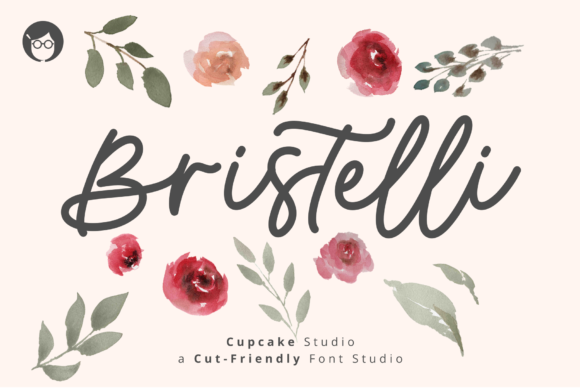
Welcome to the world of aesthetics, where words and art converge into a harmonious dance of letters. The AL Bristelli Font, a captivating creation by TheSundoro, awaits you as the ultimate script font for your home-building endeavors. With its soft curves and delicate nuances, this font is a masterpiece of modern calligraphy.
Imagine the joy of crafting handmade cards, the allure of captivating social media posts, and the uniqueness of personalized home décor, all enhanced by the AL Bristelli Font. Its versatility knows no bounds as it seamlessly blends the organic and the elegant, the classic and the contemporary.
Embark on a journey of creative expression as you explore the many wonders of the Bristelli:
- Write love letters with a touch of romance, making hearts flutter with joy.
- Design wedding invitations that exude timeless grace, cherishing the most sacred moments of life.
- Create eye-catching posters for your home's art gallery, expressing your unique style and taste.
- Bring a touch of beauty to your digital communications, making every email a work of art.
- Craft mesmerizing social media posts that capture hearts and likes with effortless charm.
With the AL Bristelli Font, your home-building dreams will take flight, guided by the hand of a master calligrapher. Embrace the art of beautiful letters and elevate your creative spirit to new heights of wonder and expression.